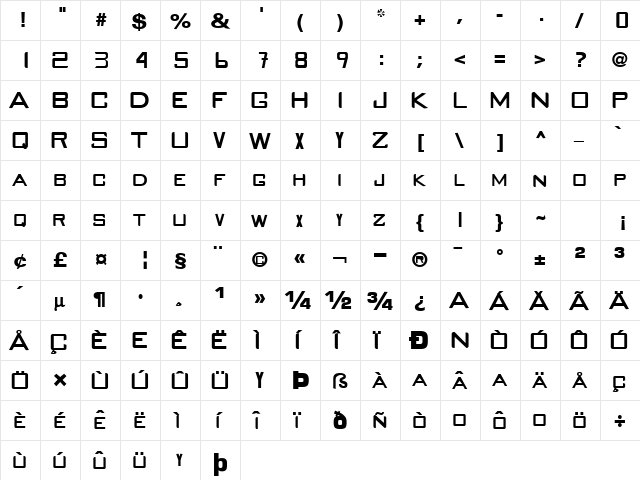
MainPhrase112 Bold
Design Context for MainPhrase112 Typeface
MainPhrase112 offers clean, dependable letterforms without strong stylistic allegiance, making it a practical choice for designers who need flexibility. The heavy weight commands attention and anchors typographic hierarchies.